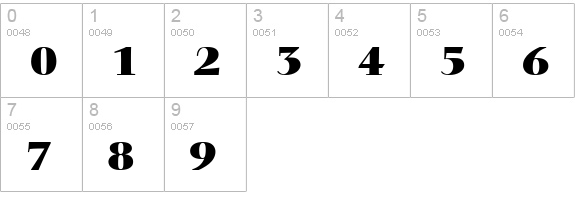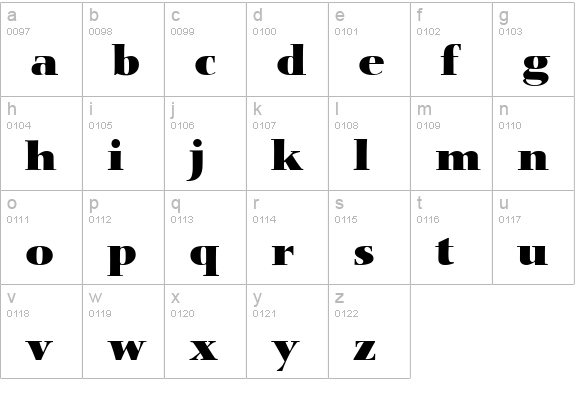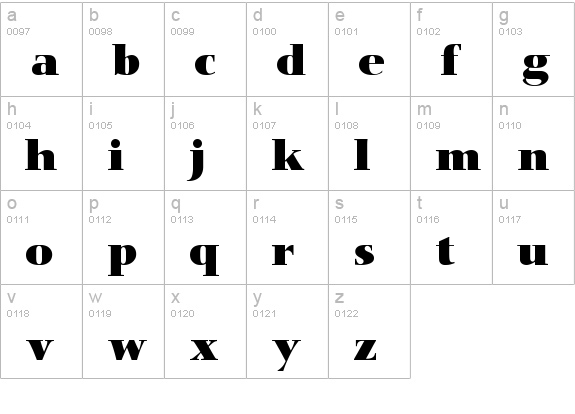
Nofret Bold Font Details
Nofret Bold is a strong, high-contrast variant in the Nofret typeface family \xE2\x80\x94 well suited to headlines, attention-grabbing titles, and strong calls-to-action.
Nofret Bold font exudes a striking and bold presence, making it the perfect choice for projects that demand attention and impact. Its strong, clean lines and elegant curves create a sense of modern sophistication, while its versatility allows it to be used across a wide range of design applications. This font is ideal for headlines, titles, logos, and other display uses where you want to make a statement. Whether you're designing a poster, branding materials, or a website, Nofret Bold will elevate your work with its commanding presence. Best of all, Nofret Bold font is available for free download at FontsMarket.com. This means you can easily access this high-quality typeface without any cost, making it a valuable addition to your font collection. Don't miss out on the opportunity to enhance your designs with the bold and impactful Nofret Bold font - download it today and see the difference it can make in your projects!